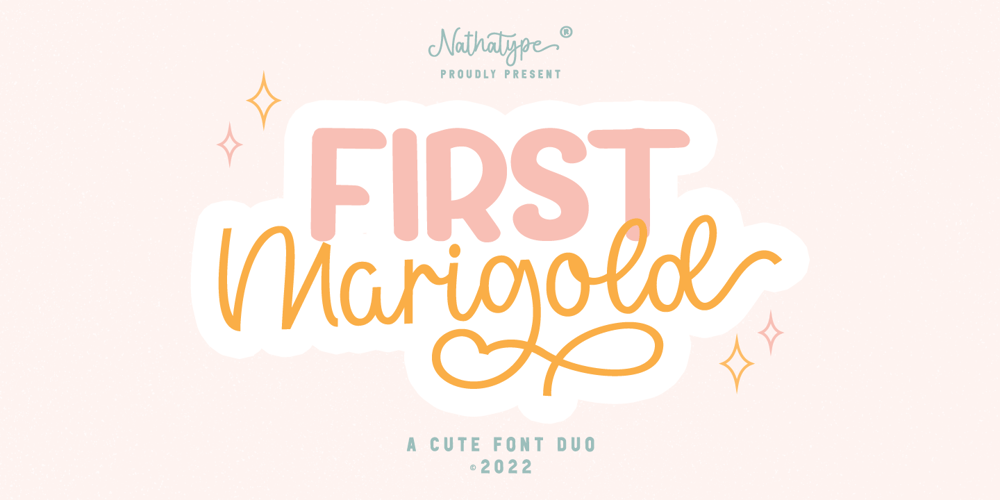
First Marigold
First Marigold font
First Marigold Font Family was designed by Donis Miftahudin and published by Nathatype. First Marigold contains 2 styles and family package options. The result of creativity and expertise. Nathatype presents a new font in special setting. It encapsulates trendy and cute impression through the combination of uppercase display and script fonts. Discover your very best design style by mix and match this font duo.Features: Ligatures Stylistic Sets Swashes Multilingual Supports PUA Encoded Numerals and Punctuations This font is perfectly used for your presentation, designs, branding, quotes, invitation, website illustrations, etc. See the font preview to get more inspiration about how to use it.Thank you for purchasing our premium fonts. f you have any further question, please don’t hesitate to contact us. Happy Designing.